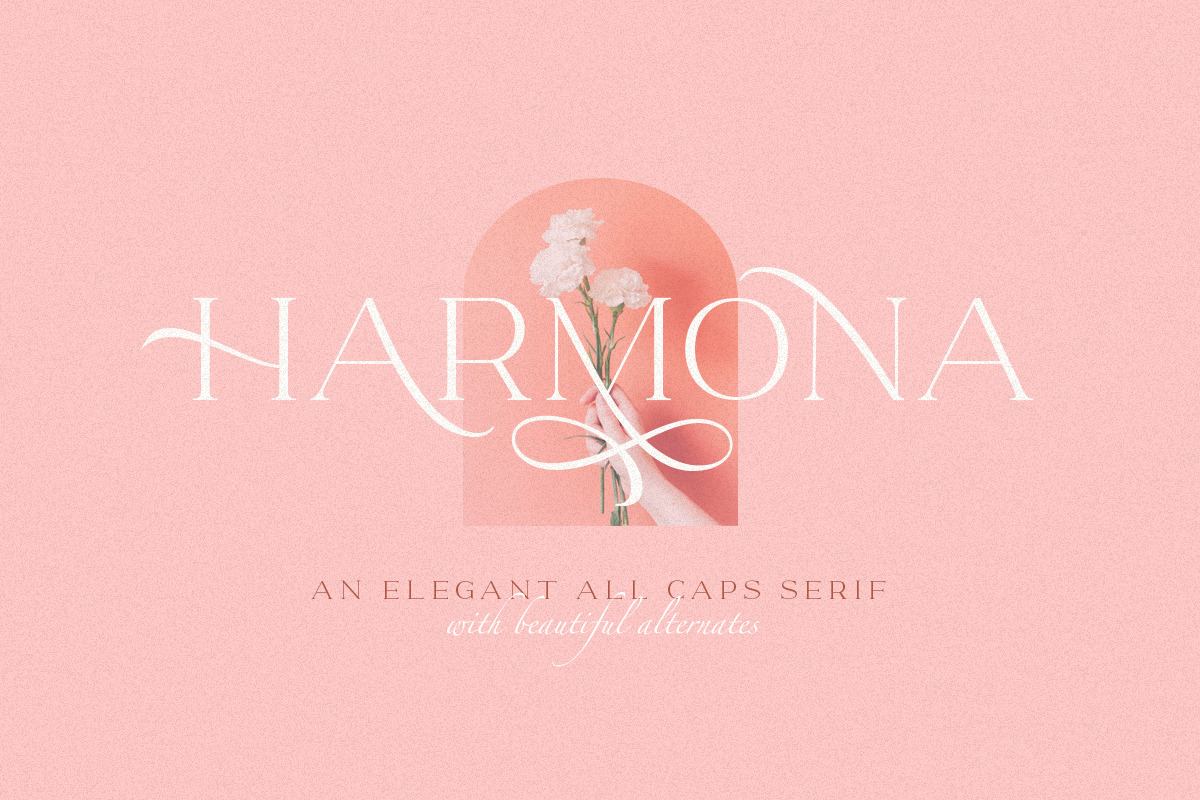
Sophisticated, sleek, and modern, Harmona - Elegant All Caps Serif Font Free Download is a beautifully crafted serif typeface designed to bring a touch of luxury and elegance to your designs. Perfect for branding, logos, editorial layouts, packaging, and high-end digital content, this font delivers a polished, upscale look with its refined all-caps style.
With its sharp, clean serifs and bold letterforms, Harmona is ideal for projects that require a strong, timeless aesthetic. Whether you're designing for a fashion brand, creating a premium product label, or crafting an elegant website, this font ensures your typography is both classy and impactful.